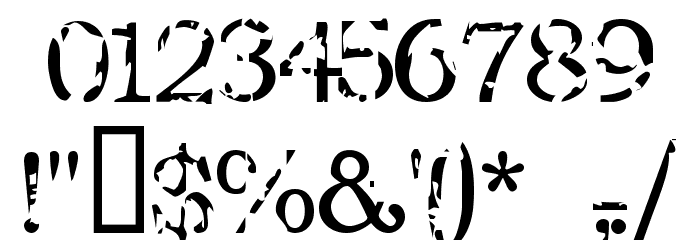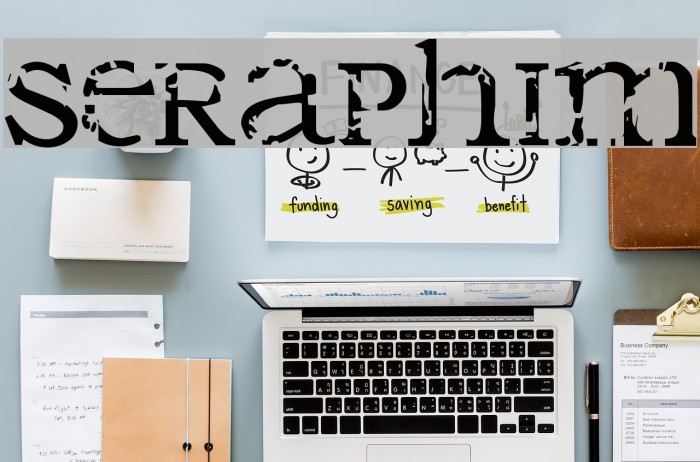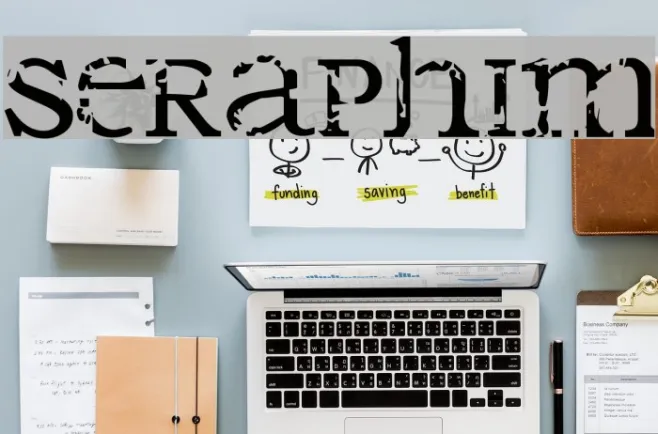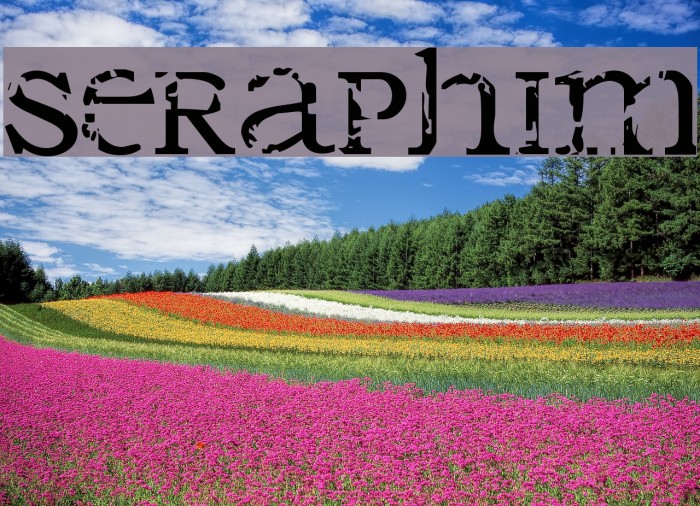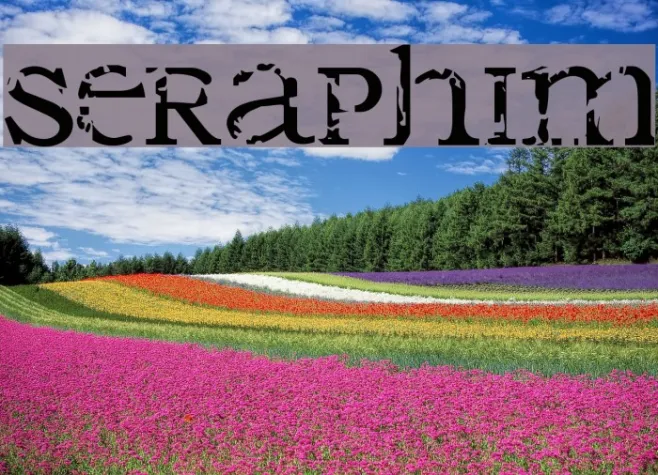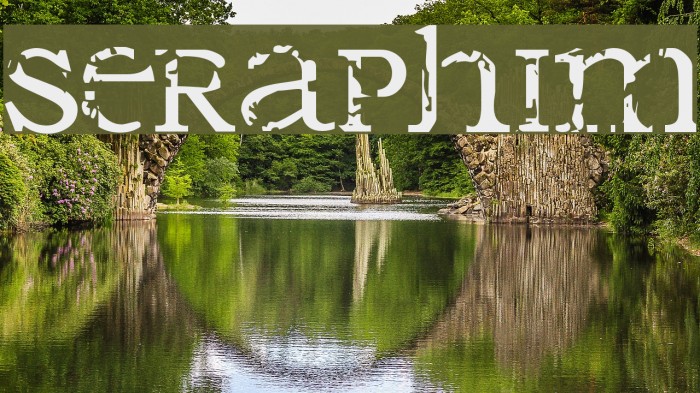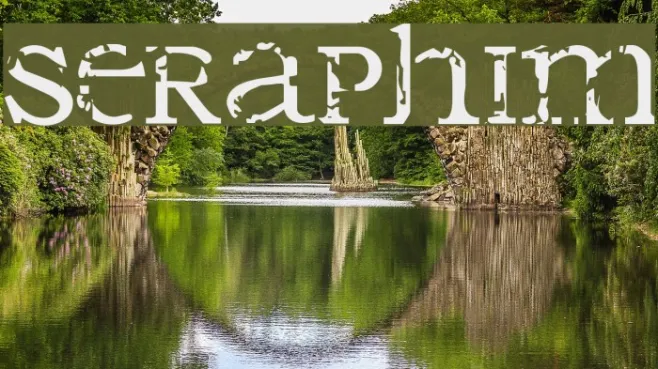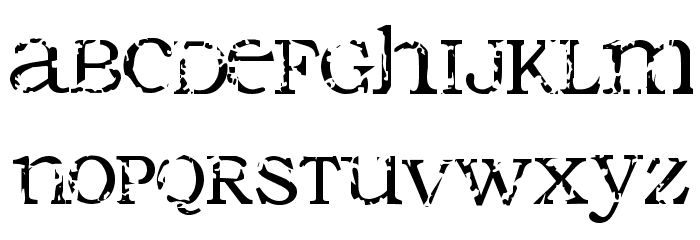
Seraphim Font
Seraphim Description
This font exhibits a distressed, grunge style with a bold and impactful presence. The characters are designed with a rough, textured appearance, giving them a worn and weathered look. This style is reminiscent of vintage or industrial aesthetics, making it ideal for projects that require a strong, edgy feel. The uppercase and lowercase letters maintain a consistent design, with each character featuring unique distress marks that add to the overall rugged charm. The numerals and special characters follow the same design principles, ensuring a cohesive look across all text elements.
| Overall Style | Vintage |
| Proposed Projects | Ideal for posters, album covers, branding for edgy or alternative products, and any design needing a vintage or industrial touch. |